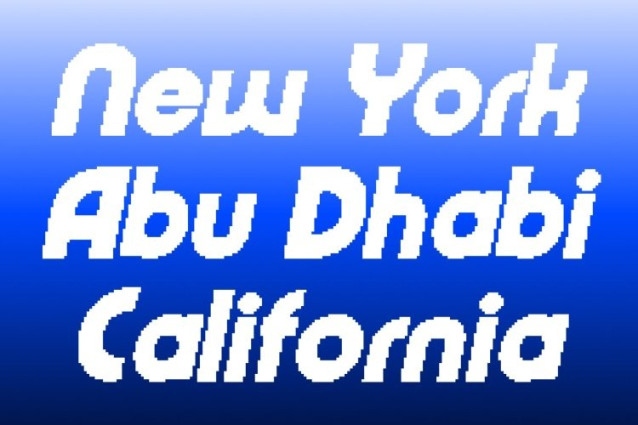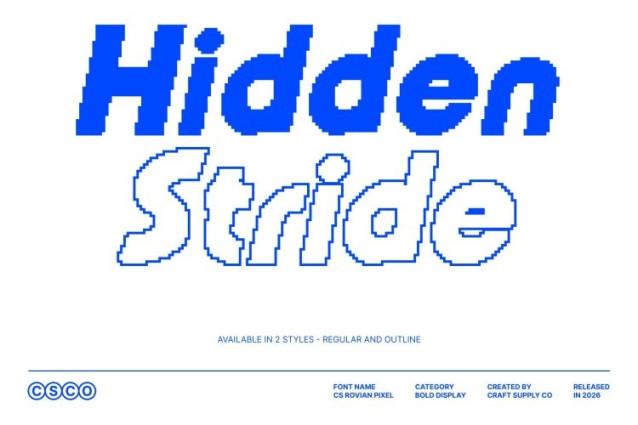
CS Rovian Pixel Font
CS Rovian Pixel Font This is a modern sans serif font constructed with bold geometric shapes and a techno-inspired pixel structure. Its strong, block-based design delivers a confident visual presence, while subtle playful details bring energy and personality to each character. The result is a typeface that feels futuristic, expressive, and unmistakably digital.
Techno Geometry with Playful Pixel Character
Built on clean techno geometry, this font features rounded pixel transitions and creative proportions that soften its bold structure. These playful nuances prevent the design from feeling rigid, giving it a lively and approachable rhythm. The pixel execution enhances its futuristic appeal, making it perfect for designs that balance precision with fun.
Fresh, Cool, and Screen-Ready Aesthetic
This font communicates a cool, contemporary attitude through its crisp pixel construction and bold weight. Its geometric clarity ensures excellent readability on screens, while its expressive details add charm and uniqueness. This combination creates a font that feels modern, stylish, and perfectly suited for digital-first visuals.
Ideal for Modern, Tech-Driven Creative Projects
Designed for branding, posters, editorials, and digital graphics, excels in headlines and display use. Whether applied to modern brand identities, retro-tech visuals, gaming graphics, or futuristic layouts, it delivers a fresh, confident impression powered by bold geometry and playful techno pixel energy.